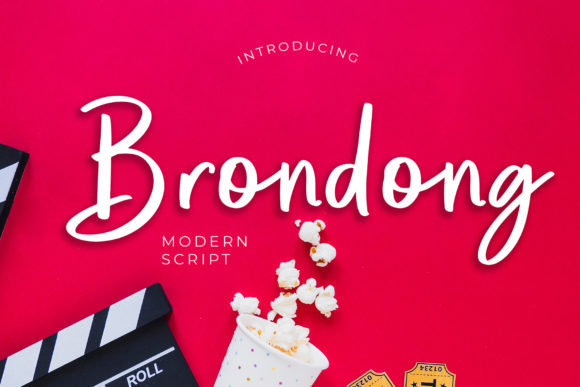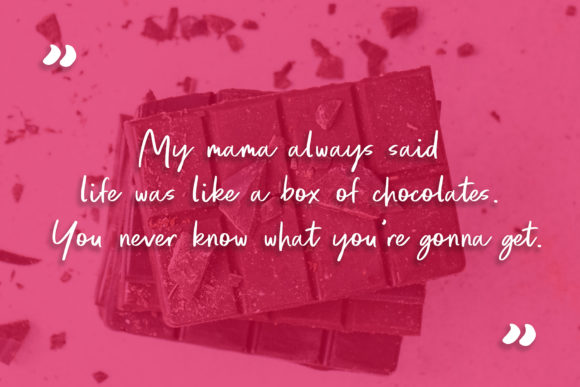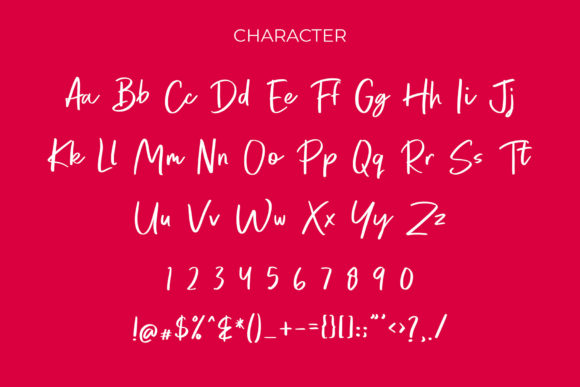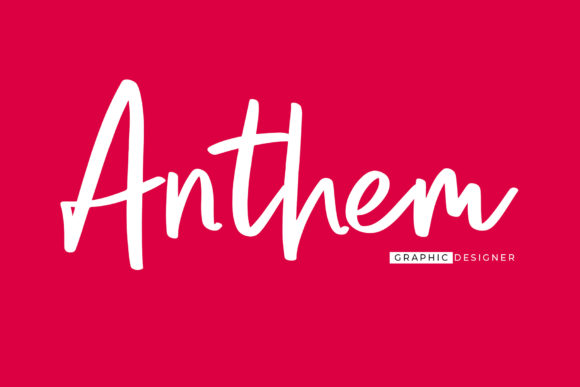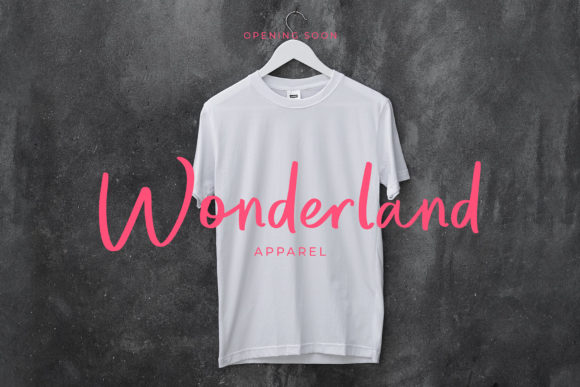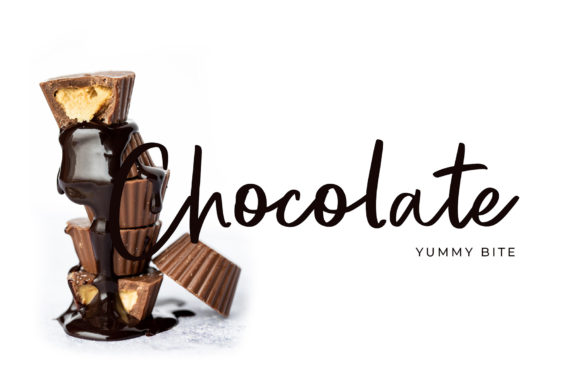
Brondong Font
About Brondong Font
Brondong is a wonderful flowing handwritten typeface that is perfectly suited for a wide variety of projects. Fall in love with its charming style!